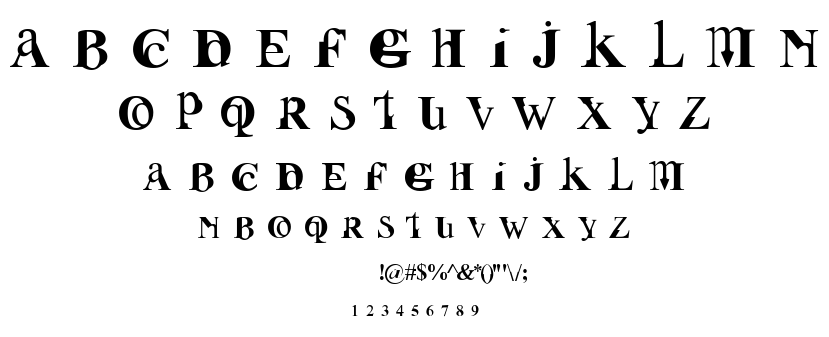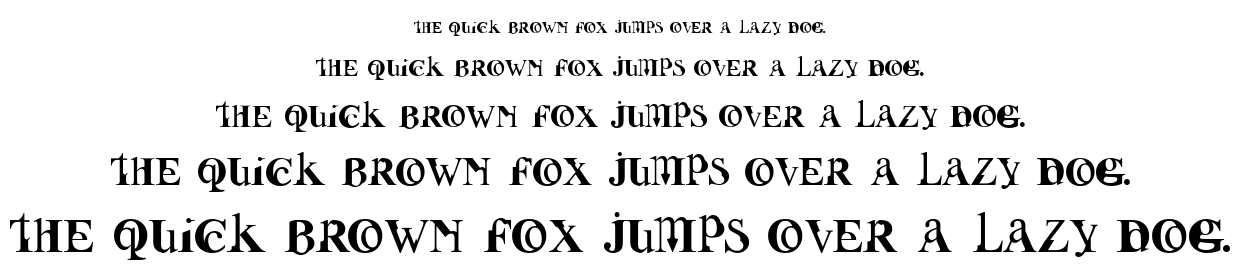
This font comes from the idea of combine lowercase and uppercase in a single letter; design of the complete font, from letters to numbers, from sign to typographical symbols, regular and italic version.